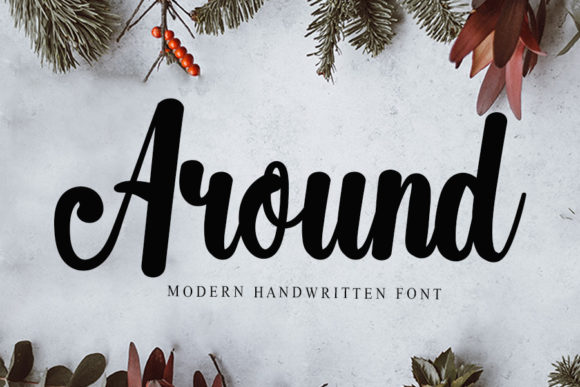
Introducing Around Font, the captivating script font family that ignites creativity and transforms your words into a visual symphony. With its alluring handwritten style, Around Font exudes a charming and inviting aura, evoking a sense of warmth and authenticity.
Carefully crafted by NYA Letter, this font family is a true masterpiece, meticulously designed to bring your creative visions to life. Whether you're a passionate designer seeking unique typography for your latest project or an enthusiastic entrepreneur seeking to elevate your business resume, Around Font is your ultimate choice.
With its effortless flow and elegant curves, Around Font adds a touch of sophistication to your designs, making them stand out from the crowd. It seamlessly blends the charm of handwritten notes with the precision of digital artistry, resulting in a font that captivates and enchants.
Immerse yourself in the versatility of Around Font, a font family that effortlessly adapts to a wide range of creative endeavors. From Instagram posts that demand attention to DIY projects that yearn for a personal touch, Around Font is your trusted companion, transforming your ideas into visually stunning creations.
With Around Font, the possibilities are limitless. Its playful and approachable nature makes it ideal for adding a dash of whimsy to invitations, greeting cards, and social media graphics. Its elegant lines and refined details make it the perfect choice for logos, branding, and marketing materials, leaving a lasting impression on your audience.
Unleash your creativity and embark on a typographic journey with Around Font. Let your words dance across the page with grace and charm, captivating your audience and leaving them spellbound. Download Around Font today and elevate your creative projects to new heights, leaving an unforgettable mark on the world of design.